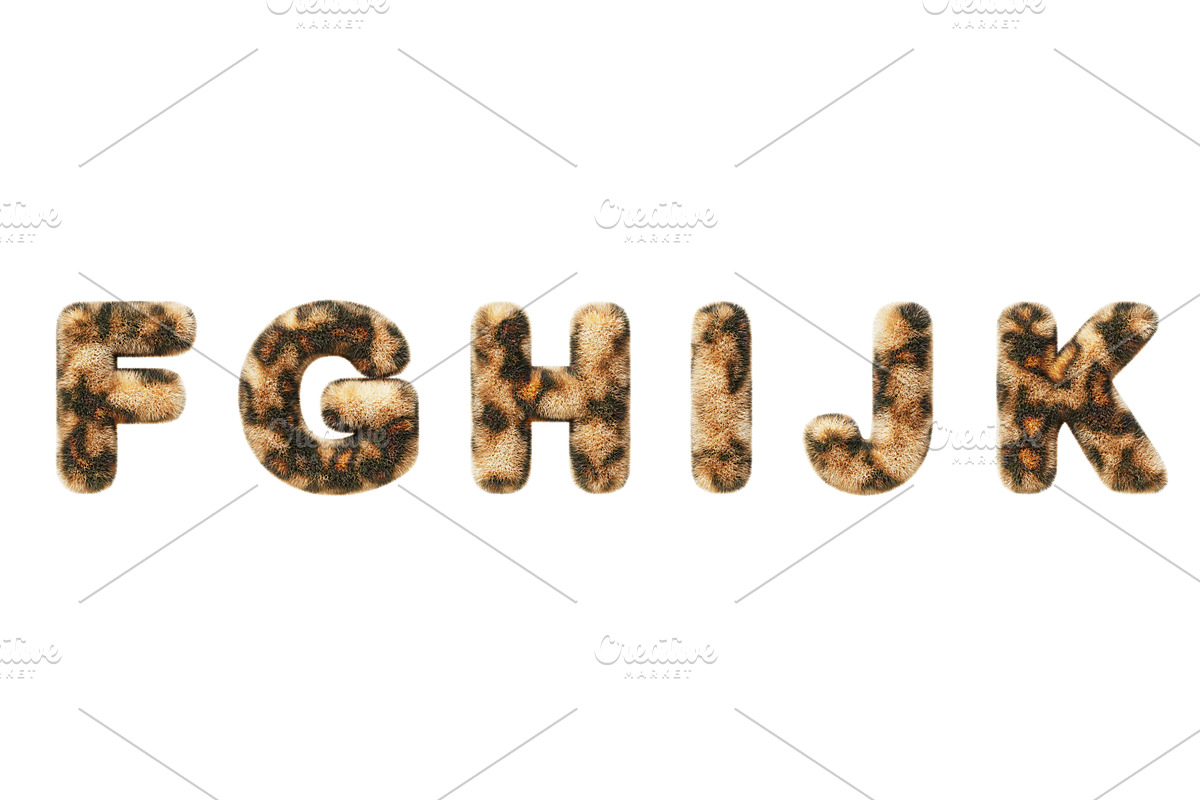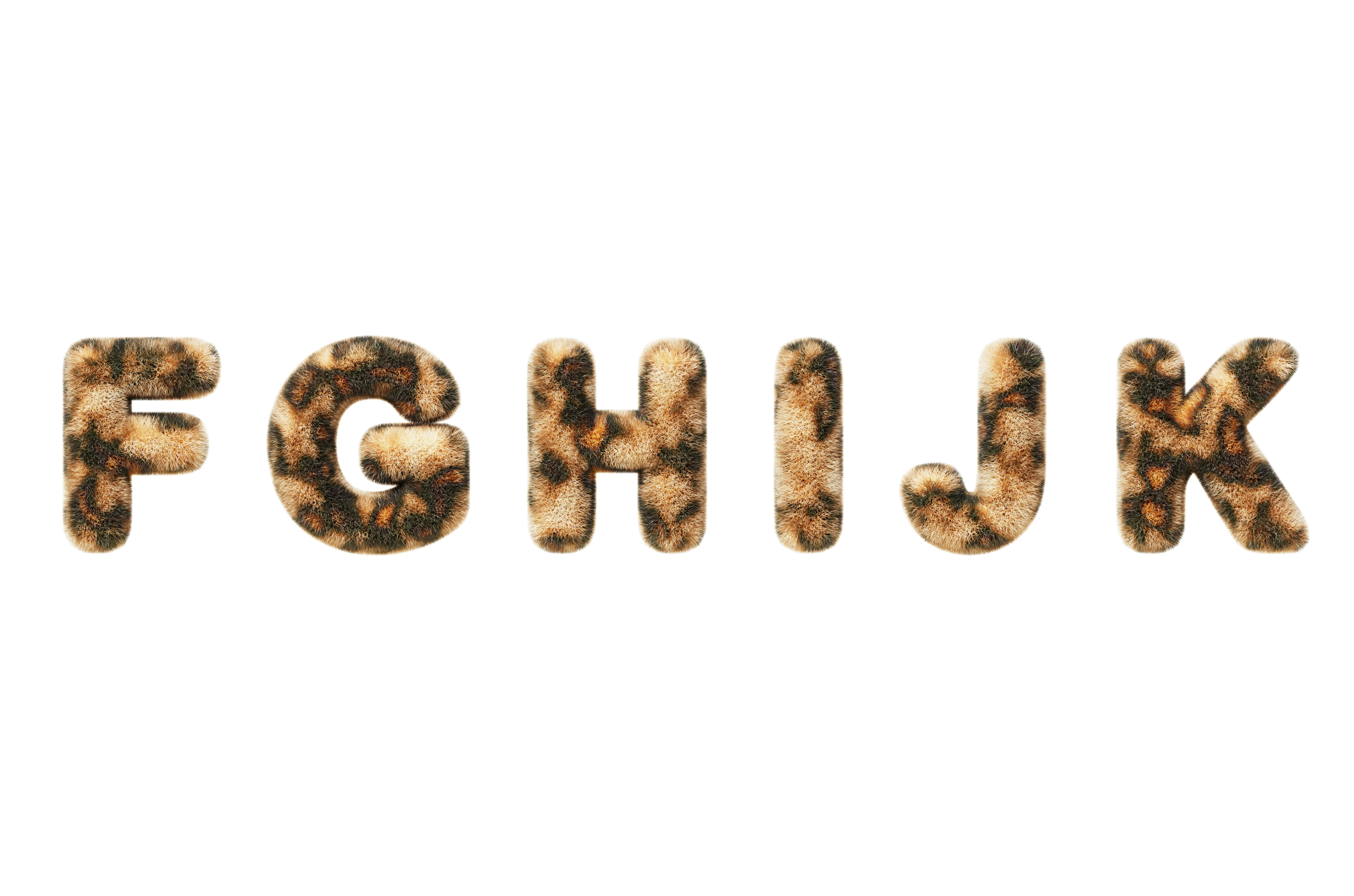
3d leopard font, fluffy alphabet
3d leopard font, fluffy alphabet letters F, G, H, I, J, K with animal fur texture and spotted pattern. Furry plush, shaggy English letters with cheetah skin print, isolated render set. 3D illustration